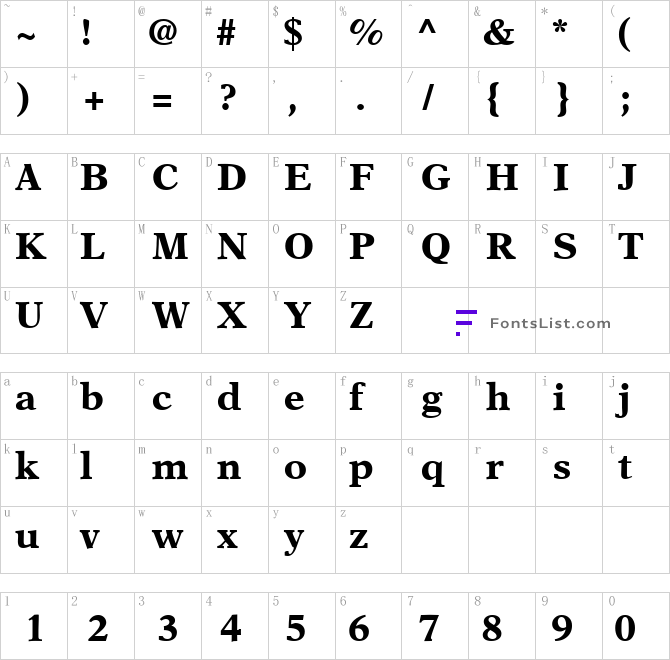
- Font Name:A831-Roman
A831-Roman-Bold.ttf is a very beautiful artistic font, A831-Roman-Bold.ttf is widely used in the design and printing of various books and pictures,A831-Roman-Bold.ttf has a strong visual impact,A831-Roman-Bold.ttf is a commonly used font in newspapers, magazines and books, and is used in posters, e-commerce Poster design, store design, logo design, font design and other fields.A831-Roman-Bold.